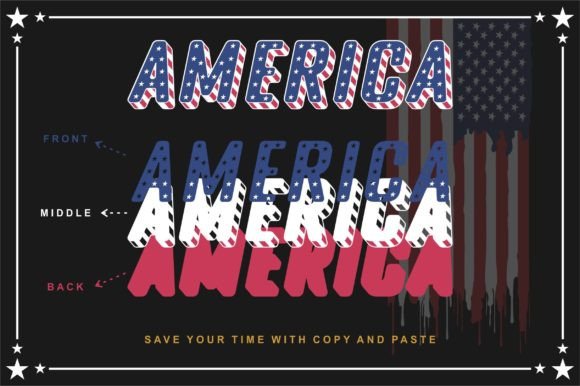
Unleash the spirit of freedom with Freedom USA Font, an embodiment of American pride and patriotism.
Immerse yourself in the retro charm of Freedom USA Font, a display font that carries the timeless essence of vintage typography. Inspired by the bold and confident energy of classic logos, this font exudes a distinct visual appeal that captivates and commands attention.
With its three-layered construction, Freedom USA Font offers a unique dimension to your designs. Create eye-catching headlines, captivating titles, or striking logotypes that cast a shadow of intrigue and depth.
Explore the limitless possibilities of this patriotic display font. Whether you're crafting designs for American-themed projects, celebrating national holidays, or expressing your love for the USA, Freedom USA Font is your perfect companion.
Embrace the boldness, the heritage, and the spirit of freedom with Freedom USA Font. Download now and embark on a patriotic typographic journey!